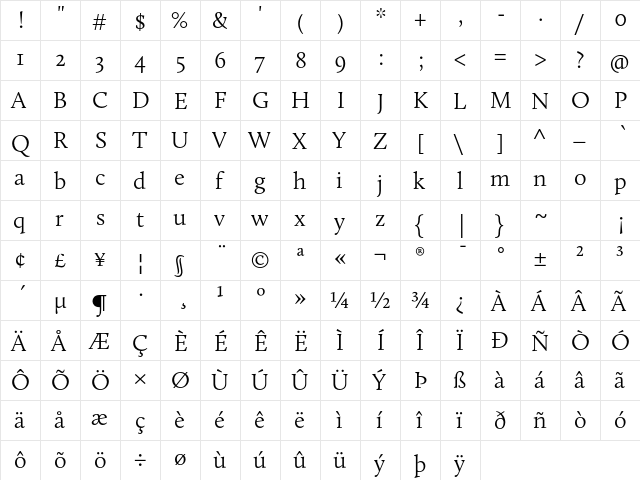
Calluna Lght Regular Font Preview
Calluna Lght Regular
Calluna Lght Regular Font Details
| Designer | Jos Buivenga |
Design Context for Calluna Lght Typeface
Calluna Lght is a composed and adaptable typeface that performs quietly and consistently across a wide range of design contexts.